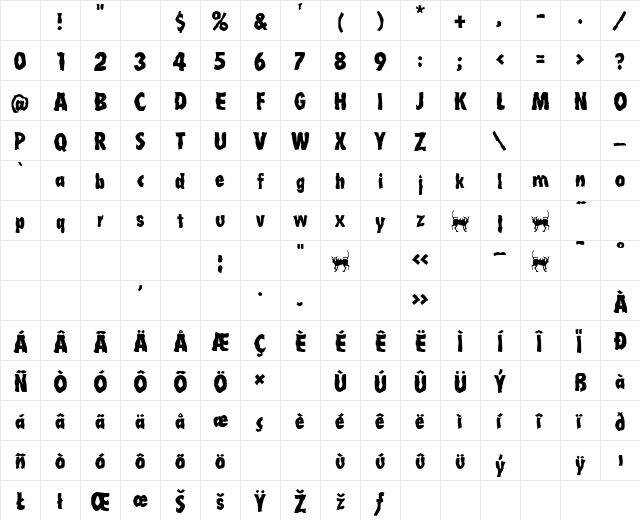
LTLaika Regular Free Font
LTLaika Regular
Design Context for LTLaika
LTLaika is a composed and adaptable typeface that performs quietly and consistently across a wide range of design contexts.